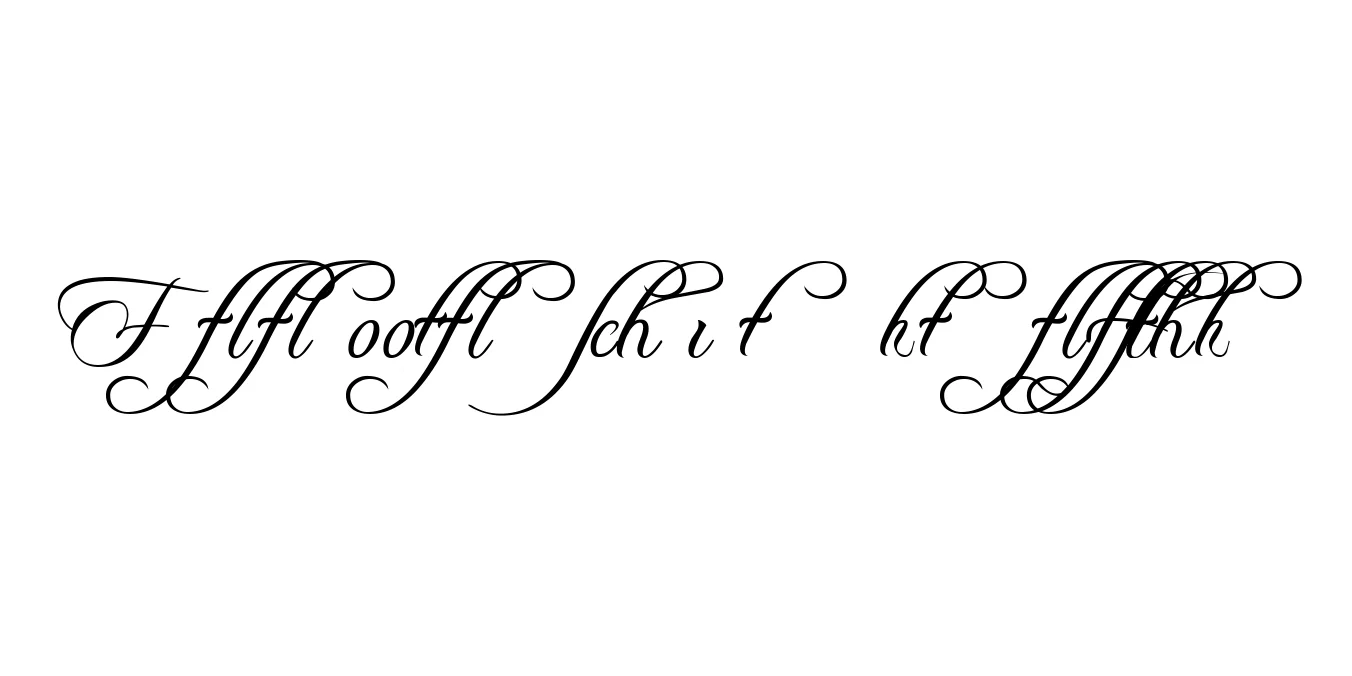
Freebooter Script - Alts Regular
Designed by Graham Meade
Freebooter Script - Alts Regular is a sophisticated and flowery formal script designed by Graham Meade for Apostrophic Lab. It is widely recognized for its extravagant swashes and elegant, flowing character forms that capture the essence of traditional calligraphy with a digital touch. The "Alts" version specifically provides designers with a rich set of alternate characters and decorative flourishes, allowing for highly customized and ornamental text layouts.
Released during the early 2000s, this font quickly became a favorite in the graphic design community due to its professional quality and generous licensing. It strikes a perfect balance between vintage romanticism and modern readability, making it an excellent choice for projects that require a touch of class and sophistication without sacrificing clarity.
Freebooter Script - Alts Regular Best Uses
Exquisite for invitations, save-the-date cards, and place settings.
Perfect for high-end boutique logos and premium product packaging.
Adds a formal and authoritative feel to diplomas and awards.
Ideal for historical fiction or romance novel titles.
Great for elegant quotes and sophisticated aesthetic posts.